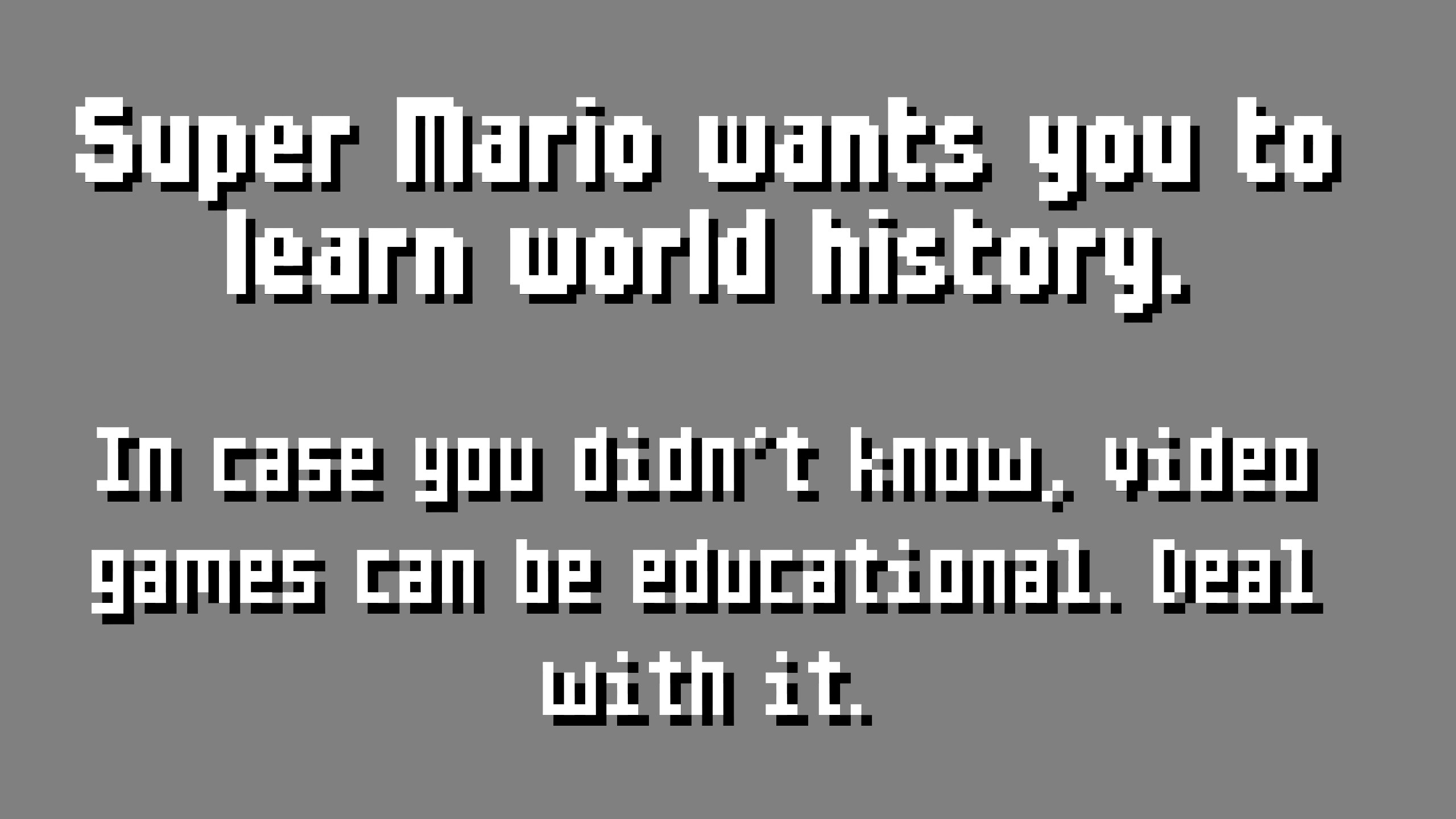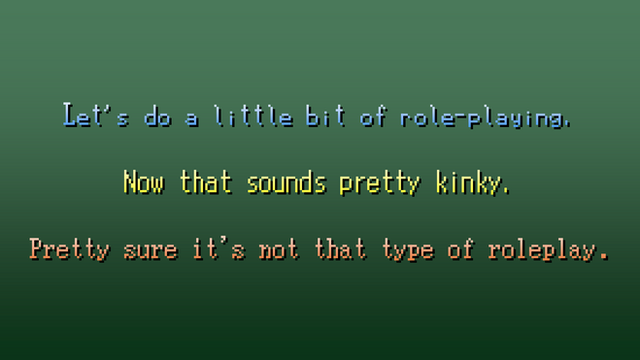
Here's a font that was used for games like Mario is Missing and Mario's Time Machine on the Super Nintendo. Those educational Super Mario Bros. games.Mario's Time Machine and Mario is Missing are copyright 1993 The Software Toolworks. Mario and other characters are copyright Nintendo. This font may not be commercially distributed. Other than that, enjoy it to your heart's content!